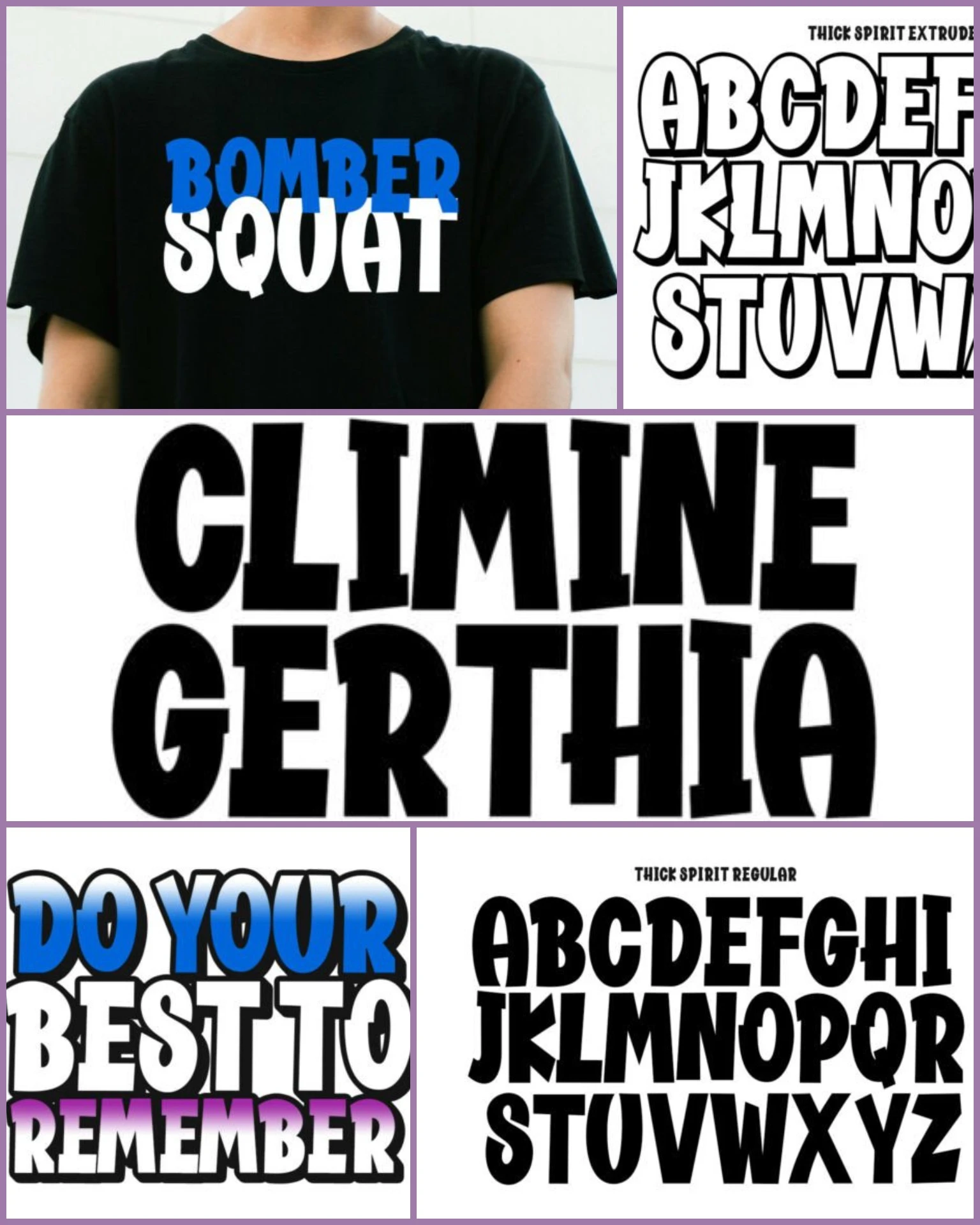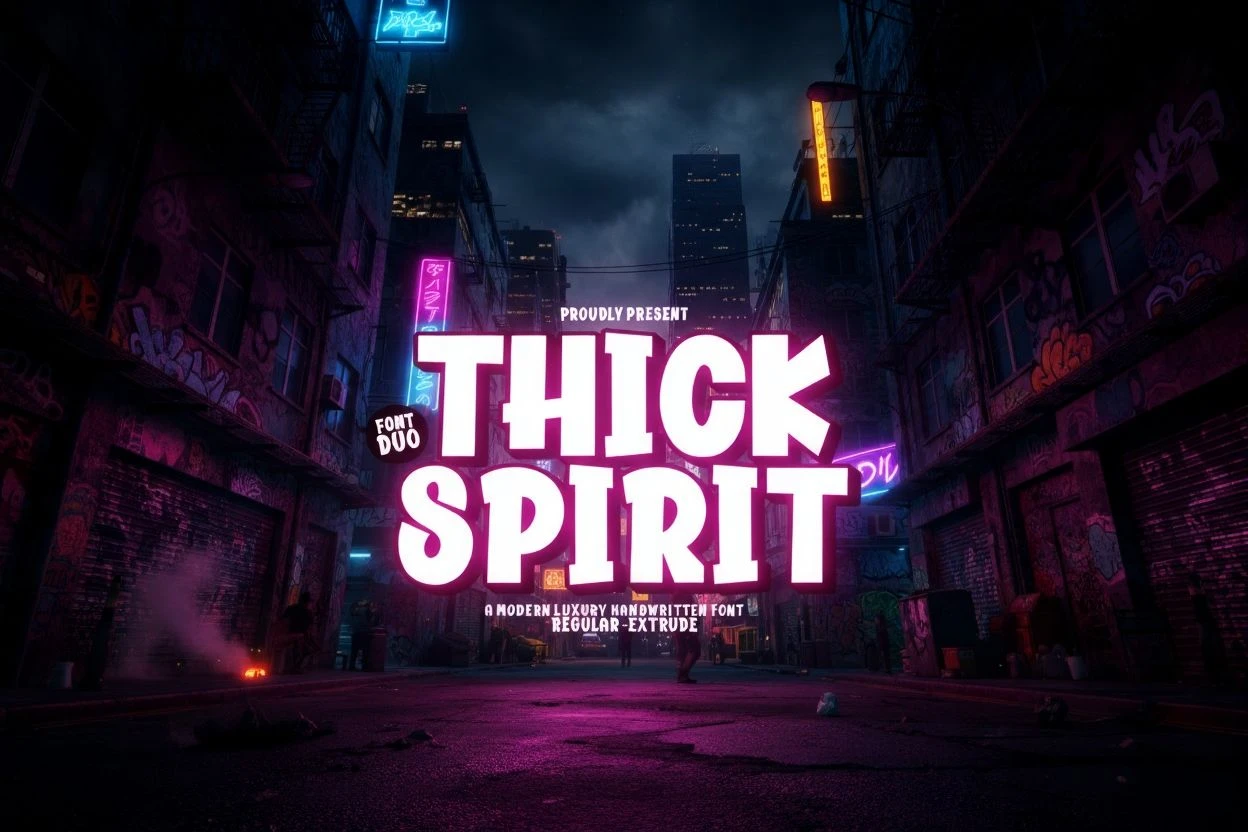
Bring your designs to life with Thick Spirit Font, a bold and whimsical display font duo that combines modern luxury with playful creativity. Featuring both regular and extrude styles, this font adds vibrant dimension and dynamic energy to any project.
Perfect for logos, posters, social media graphics, branding, merchandise, and digital art, Thick Spirit’s thick lines and expressive shapes capture attention instantly. Its quirky personality makes it ideal for projects that need a fun yet professional look.
Fully PUA encoded, the font provides easy access to alternate glyphs and ligatures, giving you endless customization possibilities. Whether you’re designing for print, web, or crafts, Thick Spirit will help your work stand out with bold charm and originality.
Let your creativity shine with Thick Spirit Font Duo — where modern design meets joyful imagination.